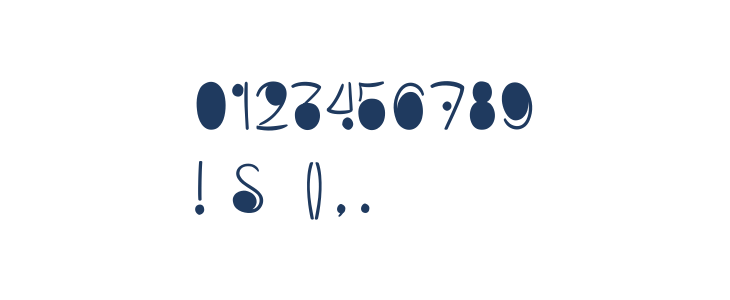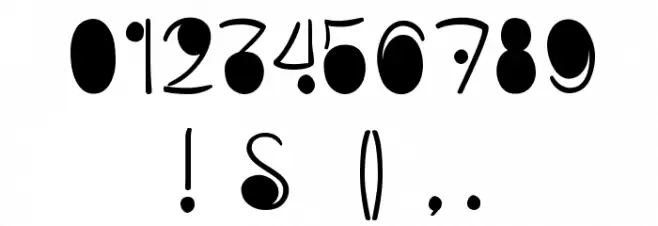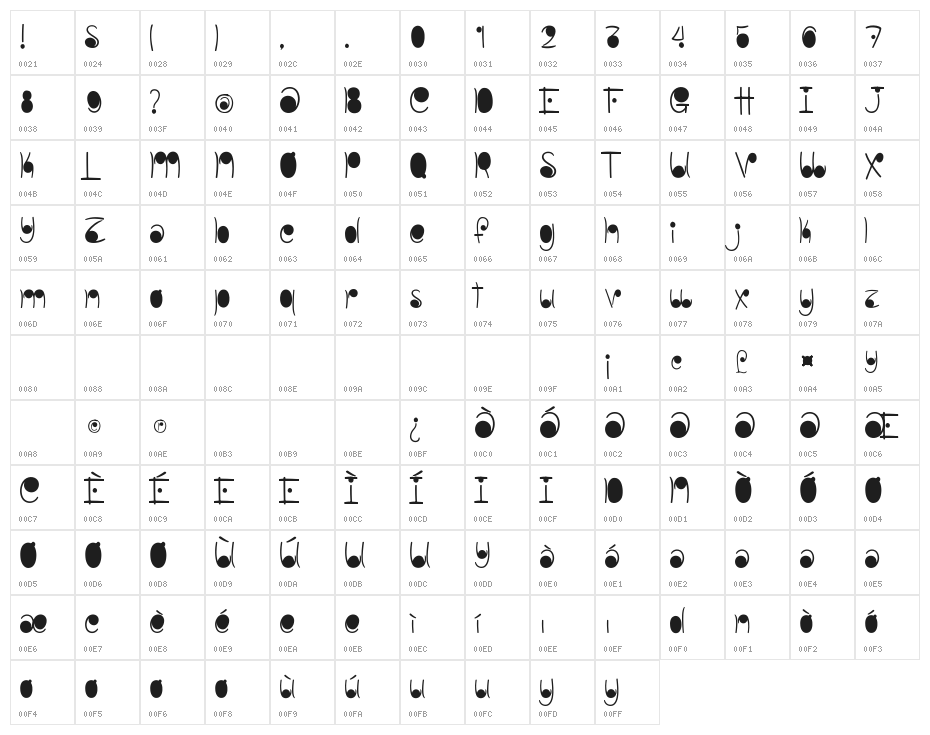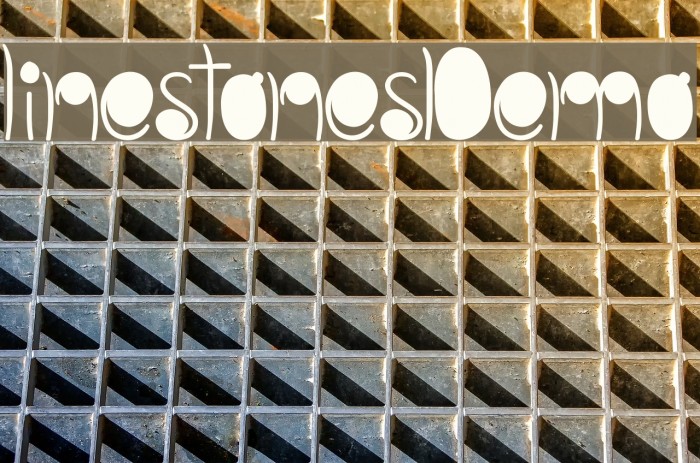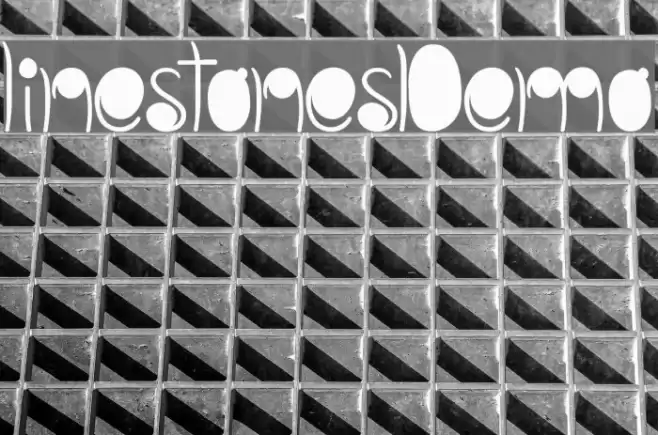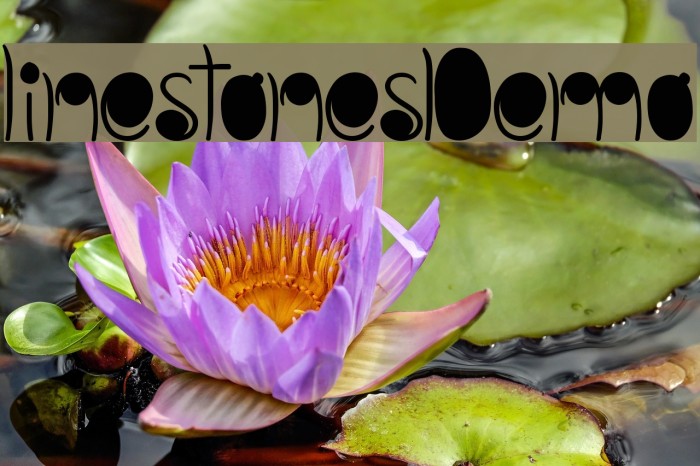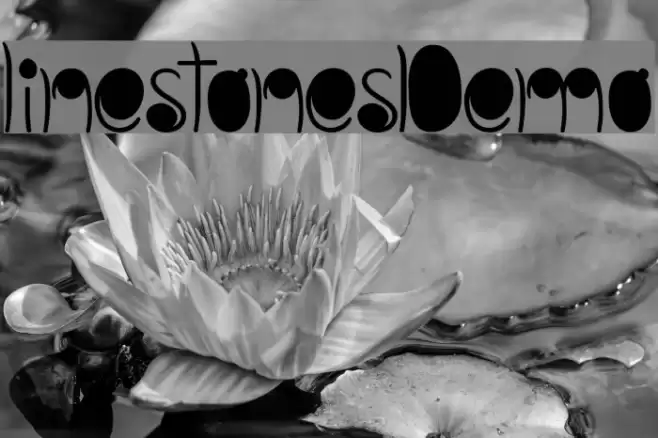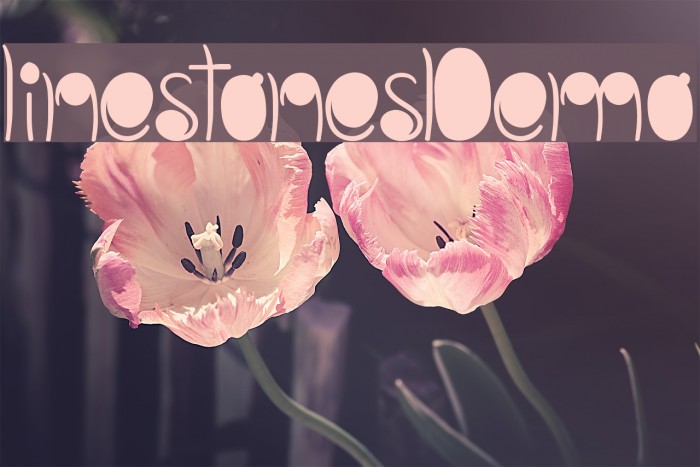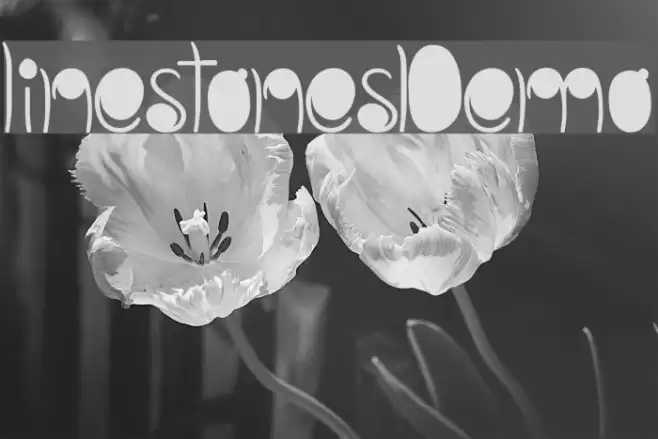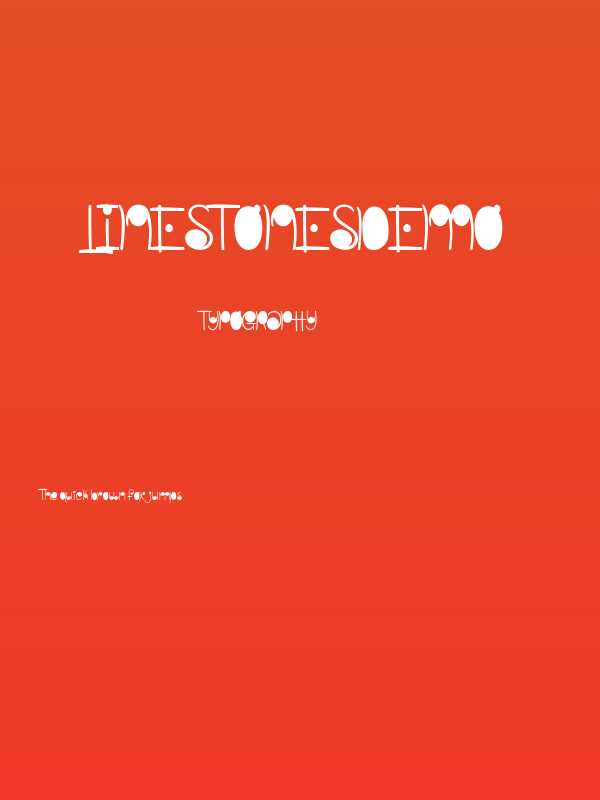
linestonesDemo Font
linestonesDemo Description
This font features a unique and artistic design with a playful and abstract style. The characters are composed of bold, rounded shapes with varying line thicknesses, creating a sense of movement and fluidity. The uppercase and lowercase letters maintain a consistent style, with some letters incorporating circular elements that add to the whimsical nature of the font. The numbers and special characters follow the same design principles, ensuring a cohesive look across all glyphs. This font is ideal for creative projects that require a distinctive and eye-catching typeface.
| Proposed Projects | Ideal for artistic posters, creative branding, children's books, and playful packaging designs. |